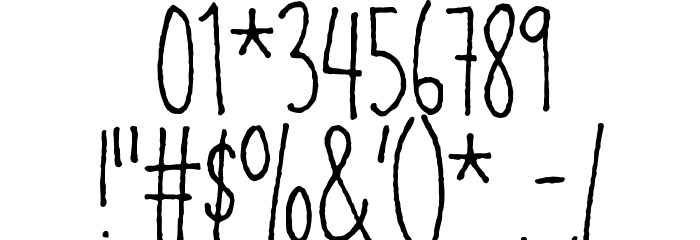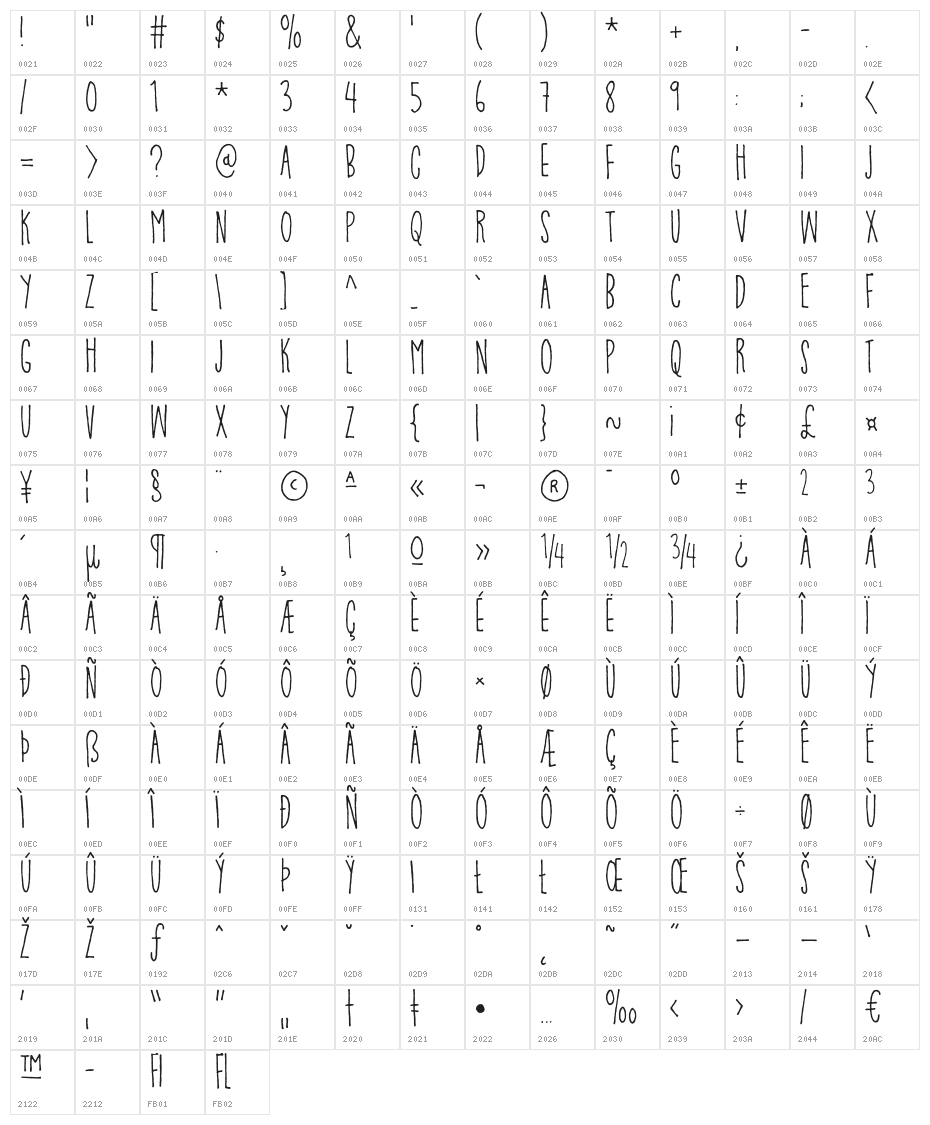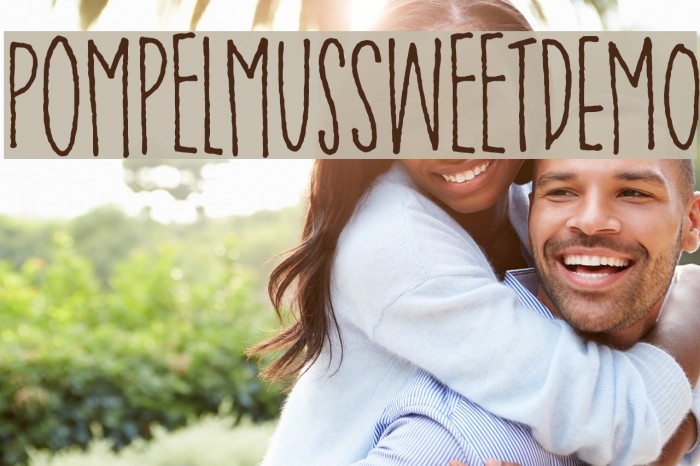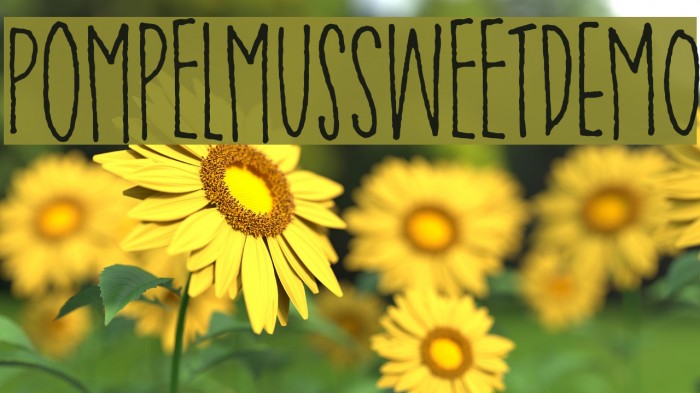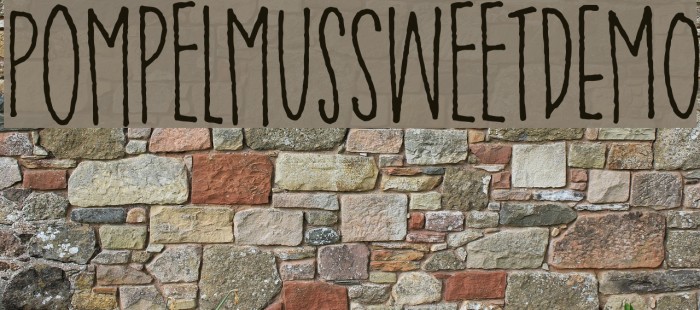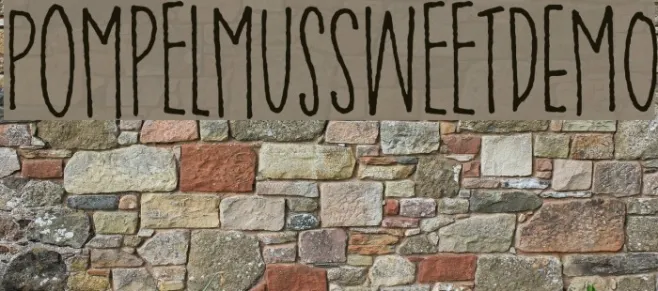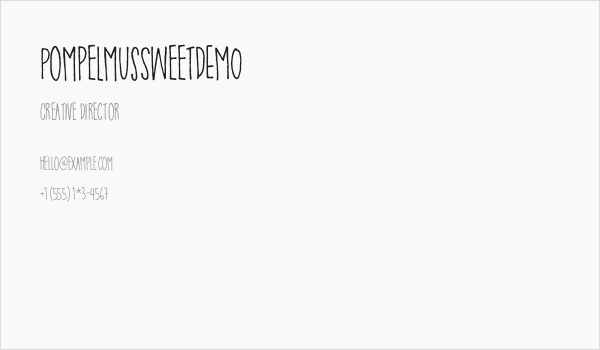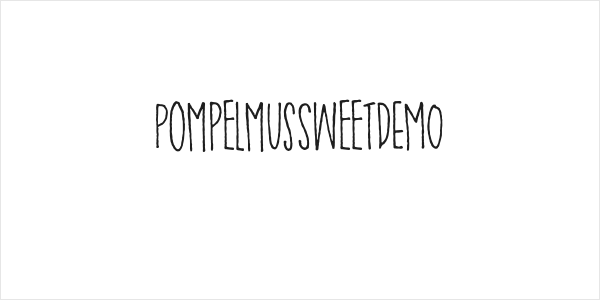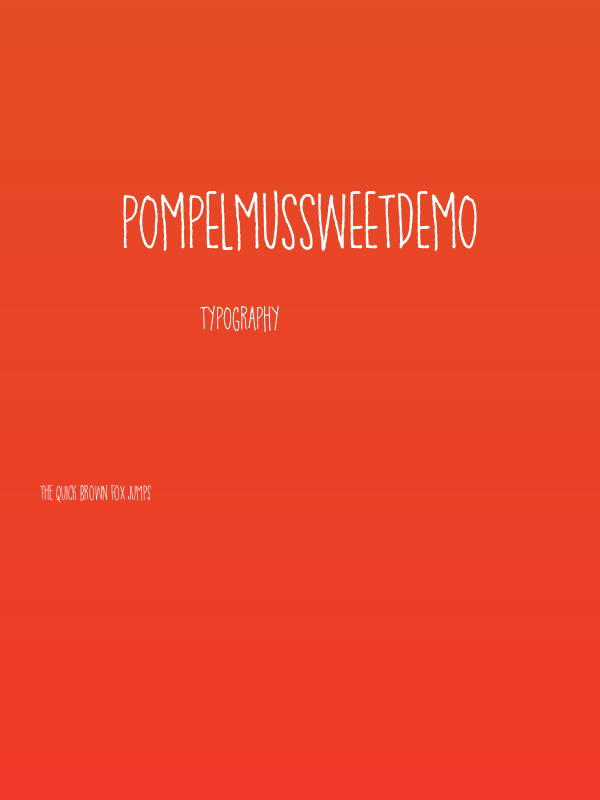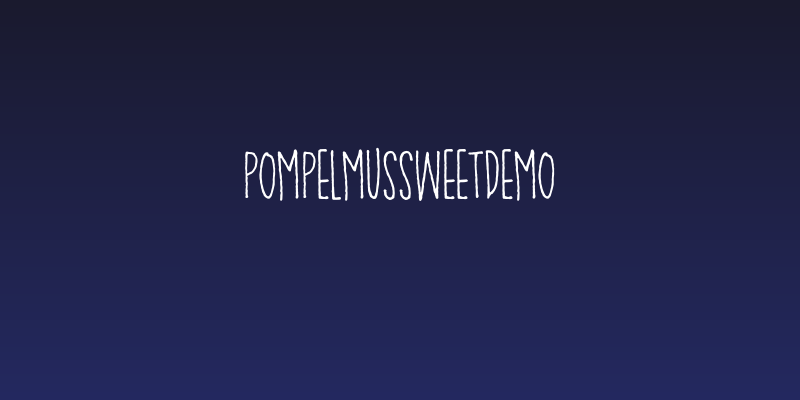
PompelmusSweetDEMO Font
PompelmusSweetDEMO Description
This font features a playful and hand-drawn aesthetic, characterized by its tall, narrow letterforms and slightly irregular strokes. The uppercase and lowercase letters maintain a consistent height, contributing to a cohesive appearance. The strokes are uneven, giving it a casual and organic feel, reminiscent of hand-lettering. The numbers and special characters follow the same style, ensuring uniformity across all glyphs. This font's unique charm lies in its imperfect lines and whimsical personality, making it stand out in creative projects.